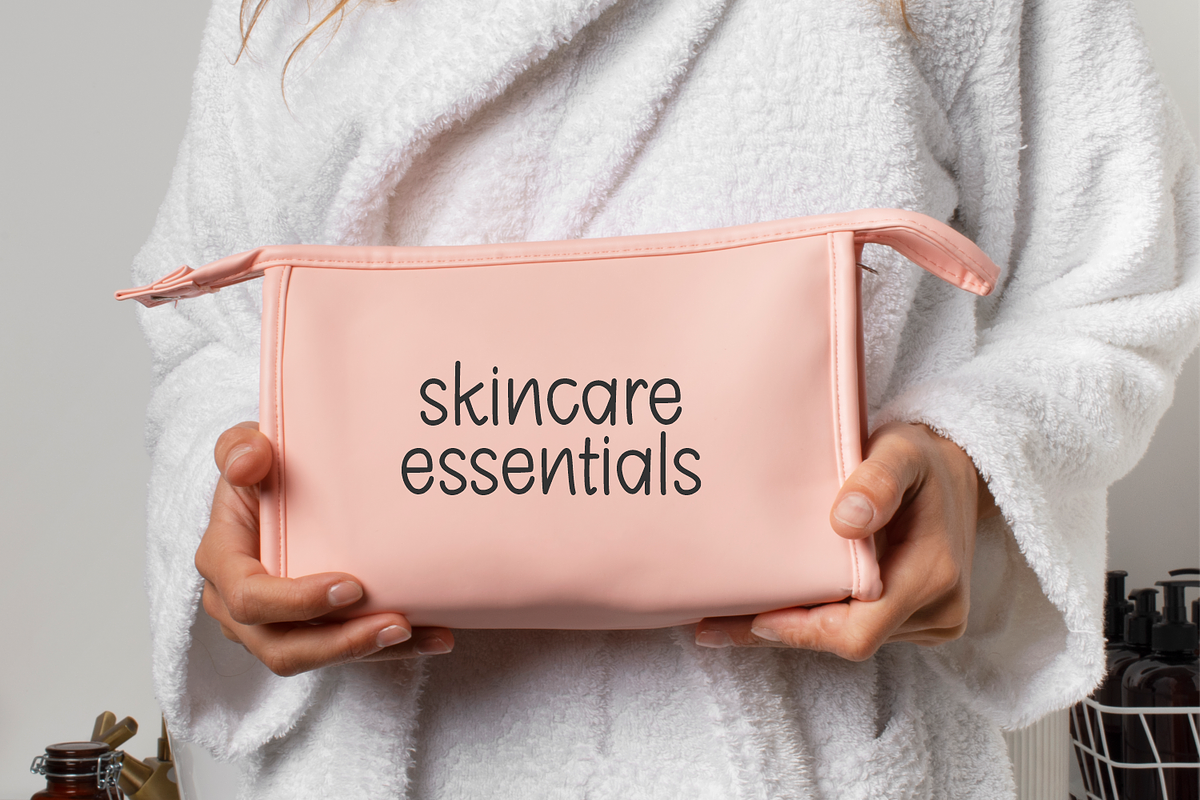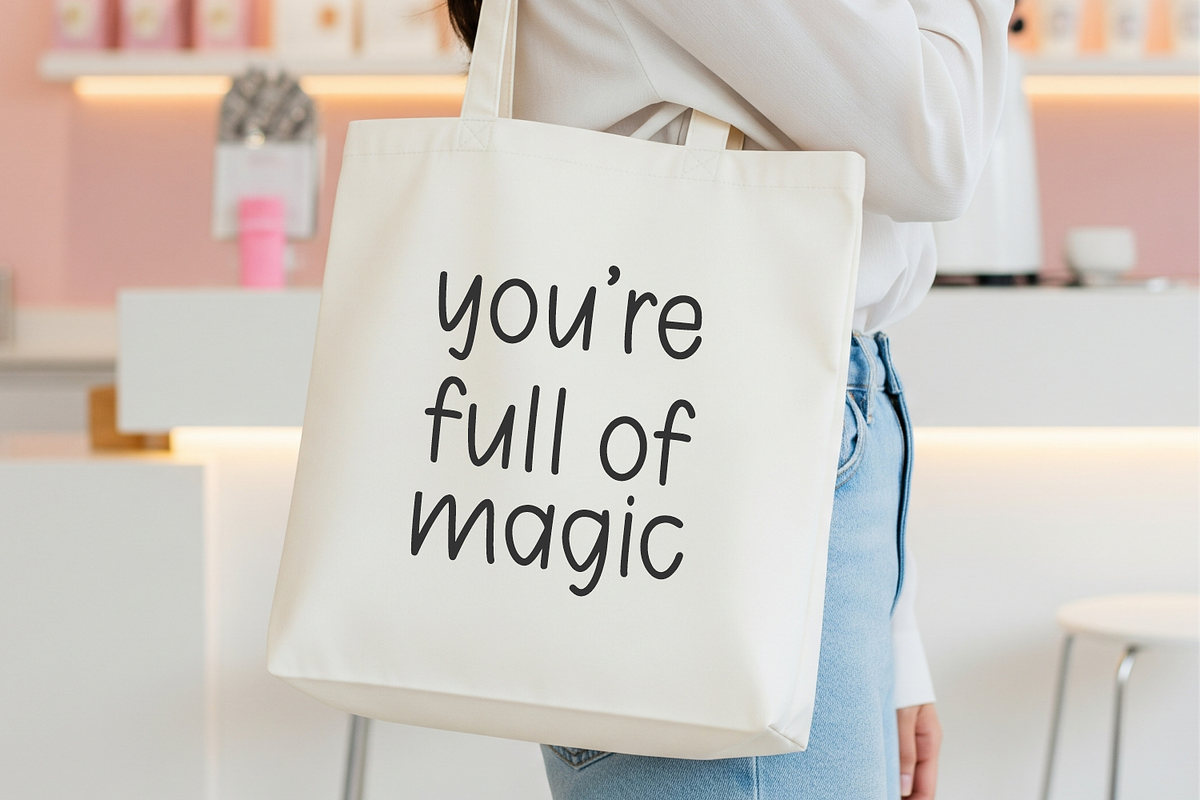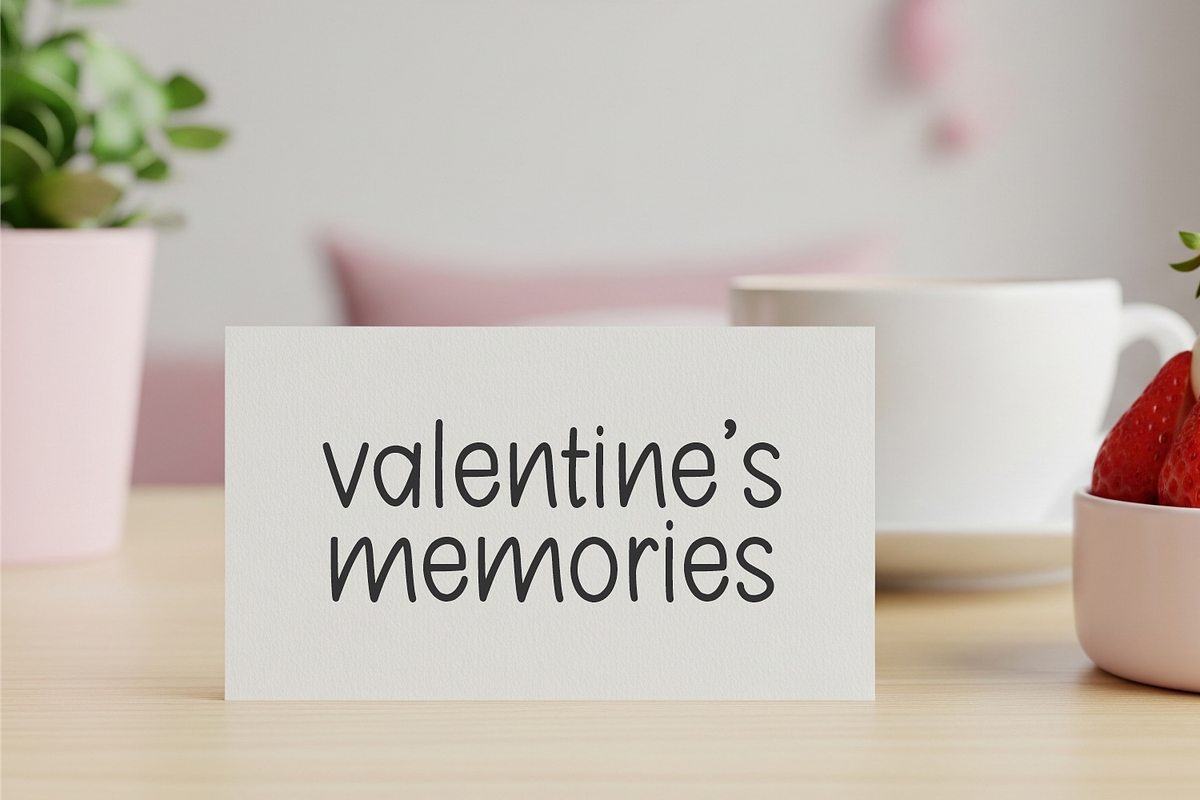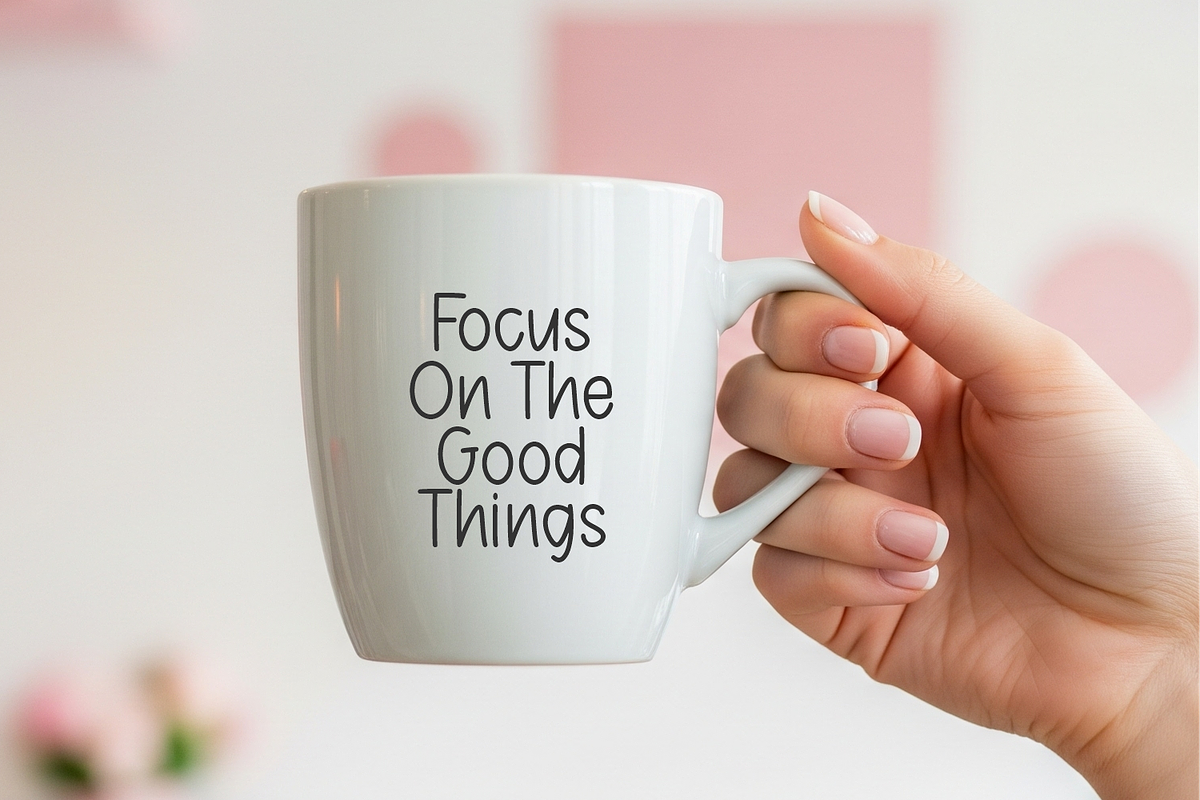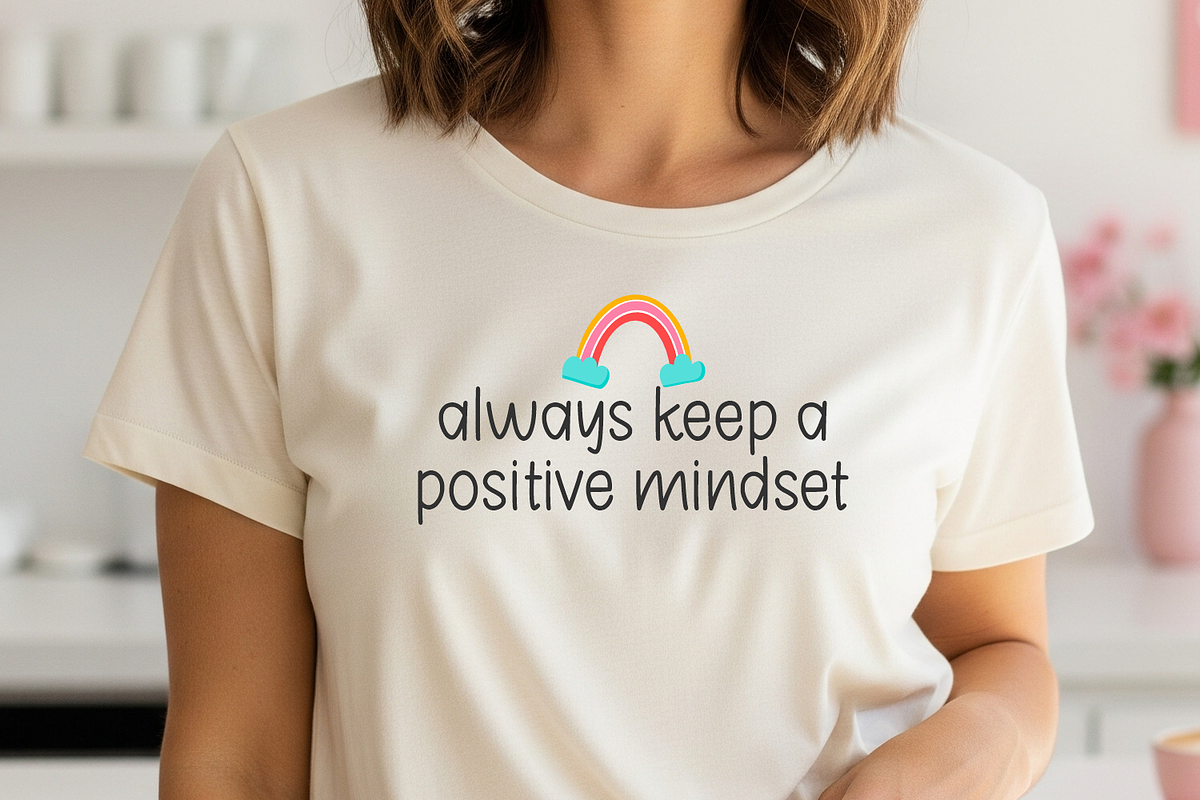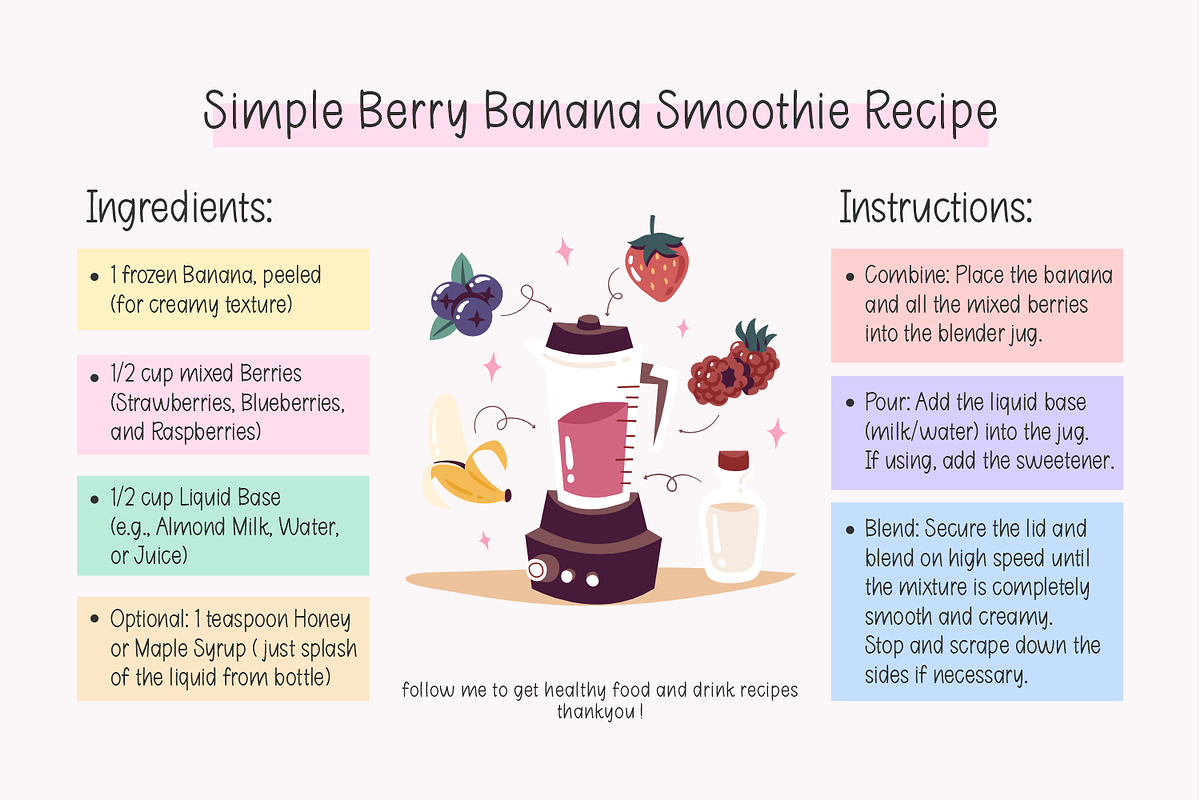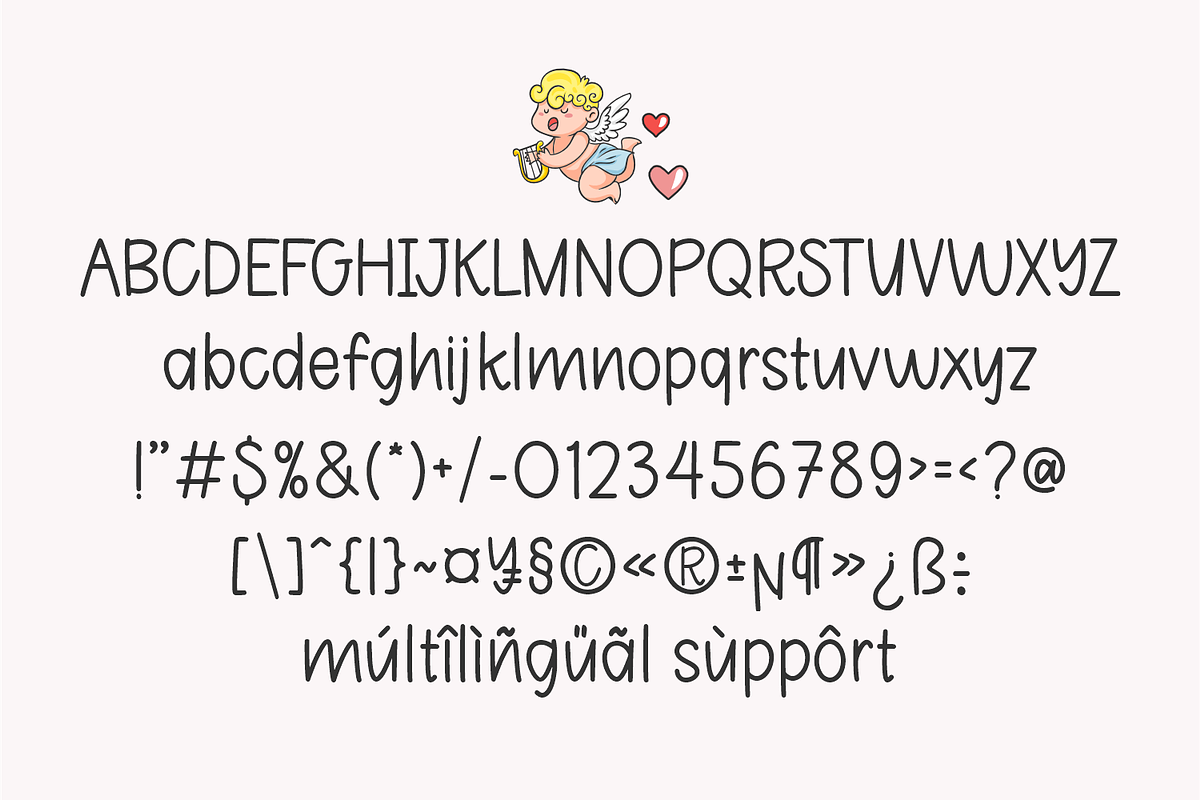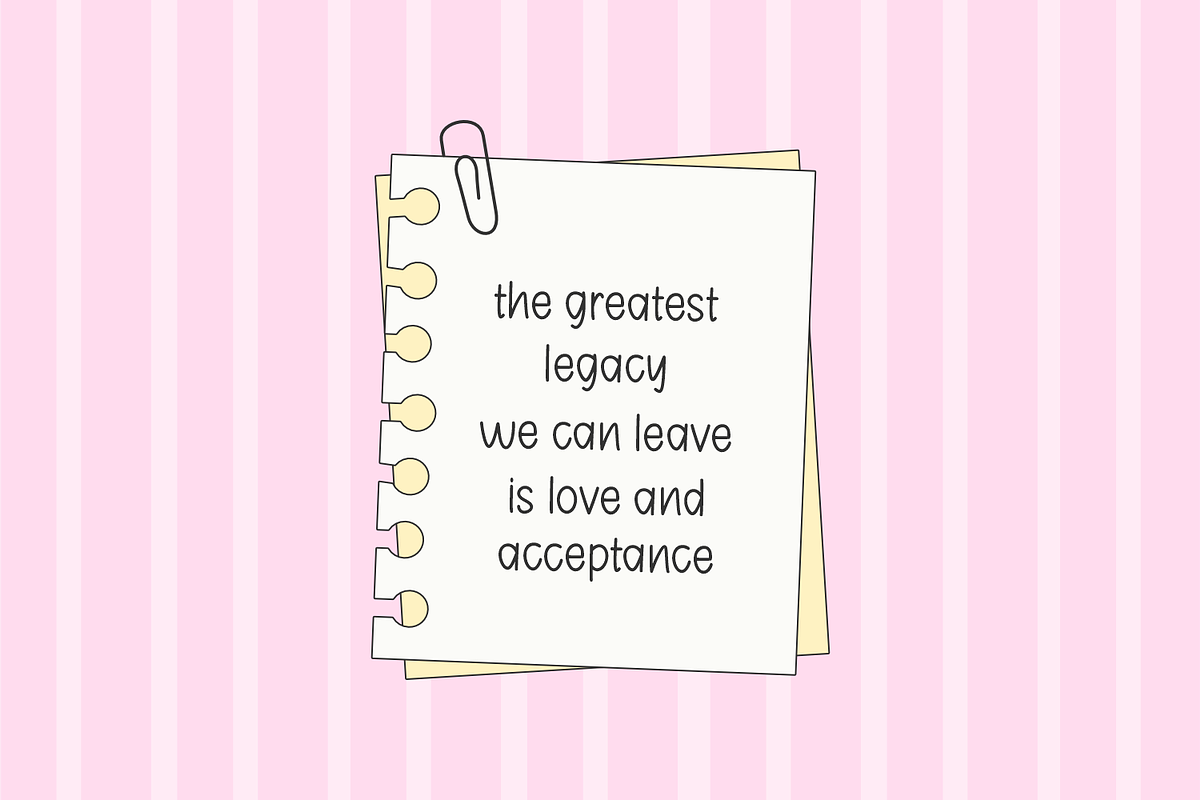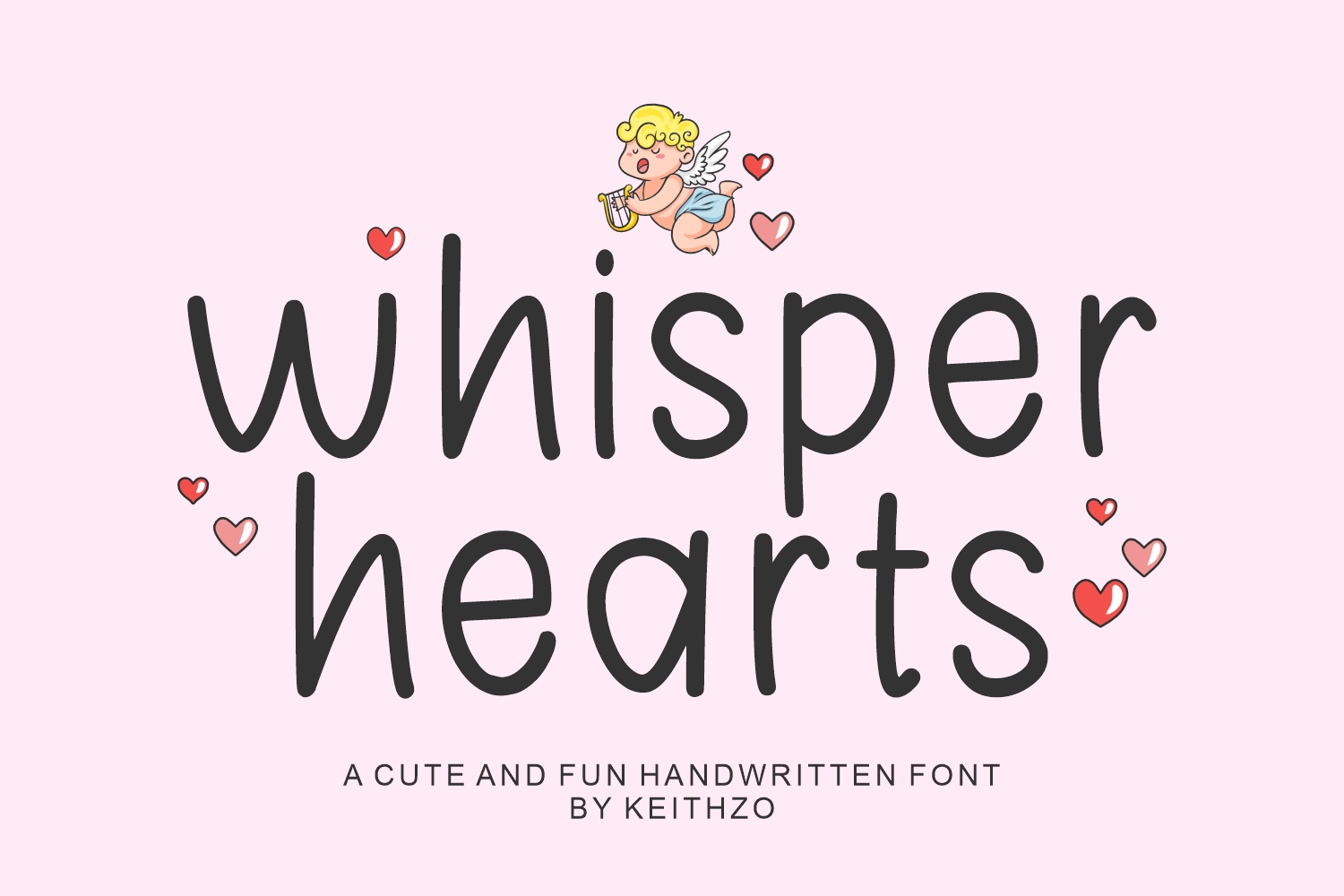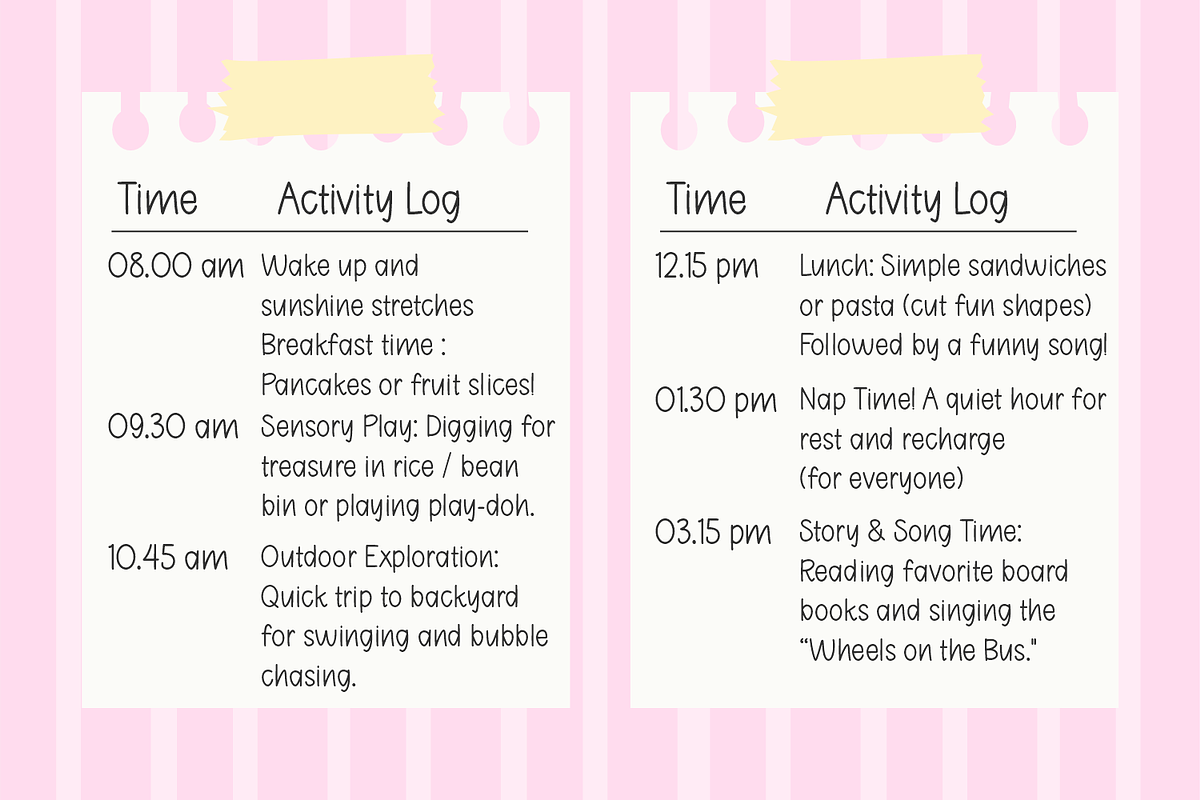
Whisper Hearts - Valentine's Font
Introducing Whisper Hearts, the undeniably cute and charming handwritten font that speaks volumes of affection and fun! With its rounded, gentle forms and adorable, playful rhythm, Whisper Hearts captures the sweet sentiment of a secret love note. This font is custom-made for the season of love. Use it for personalized Valentine’s Day messages, romantic stationery, anniversary cards, and sweet social media quotes.
Its friendly and legible style makes it perfect for kids’ activities, children’s book covers, nursery decor, classroom resources, and playful branding. Provides an authentic, hand-crafted feel, making your designs approachable and genuinely heartwarming. Ideal for wedding materials, engagement announcements, gift tags, mug designs, and any project that needs a loving, cheerful touch.